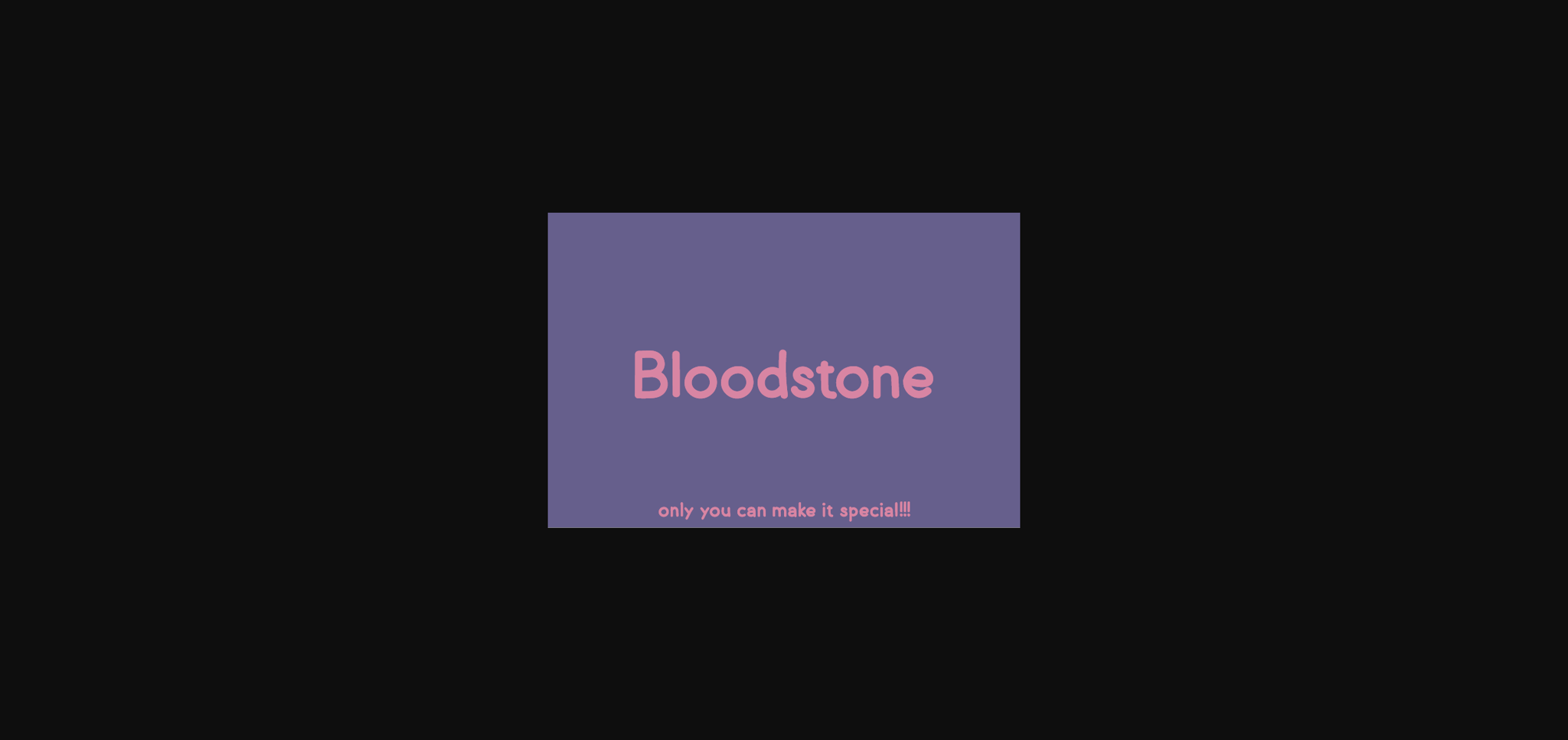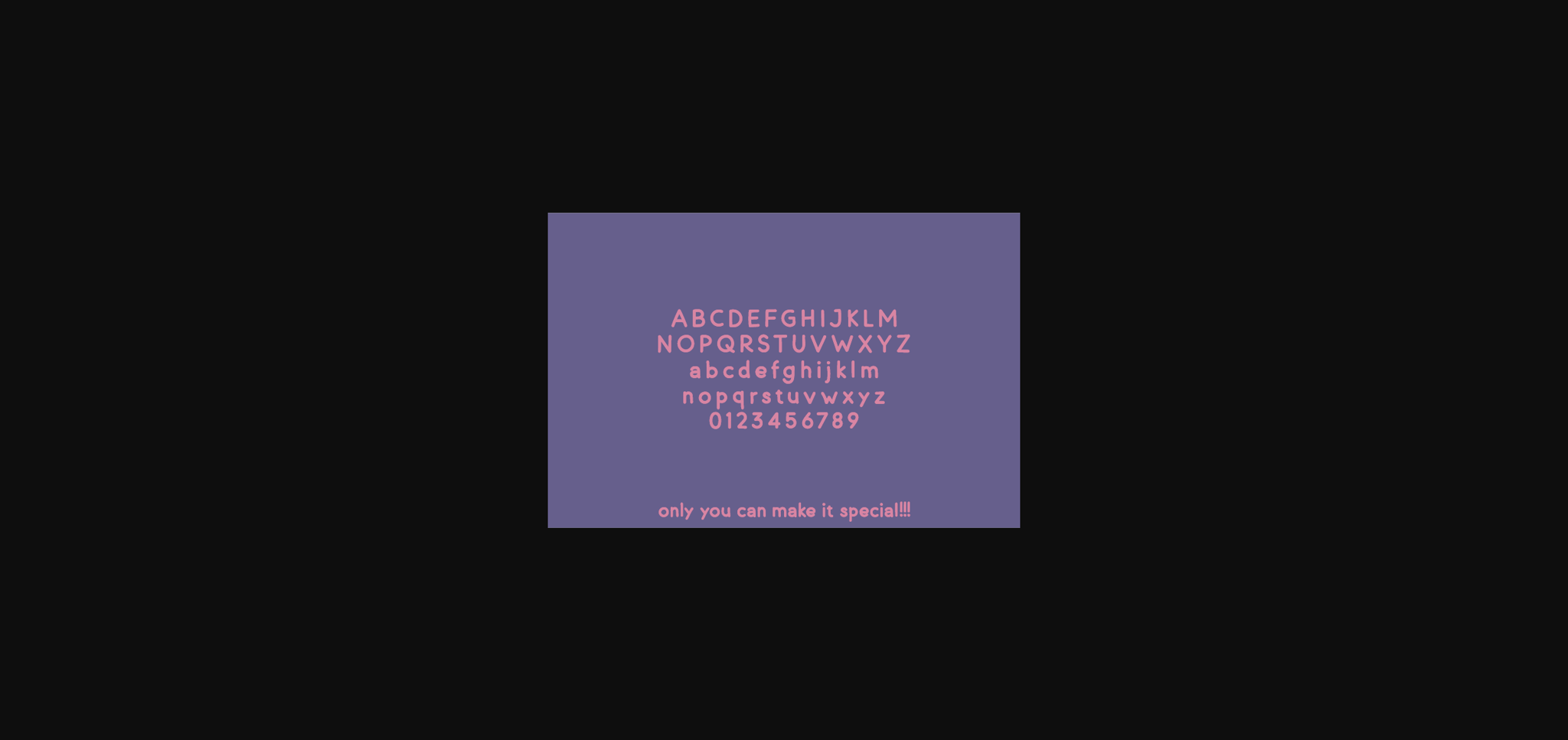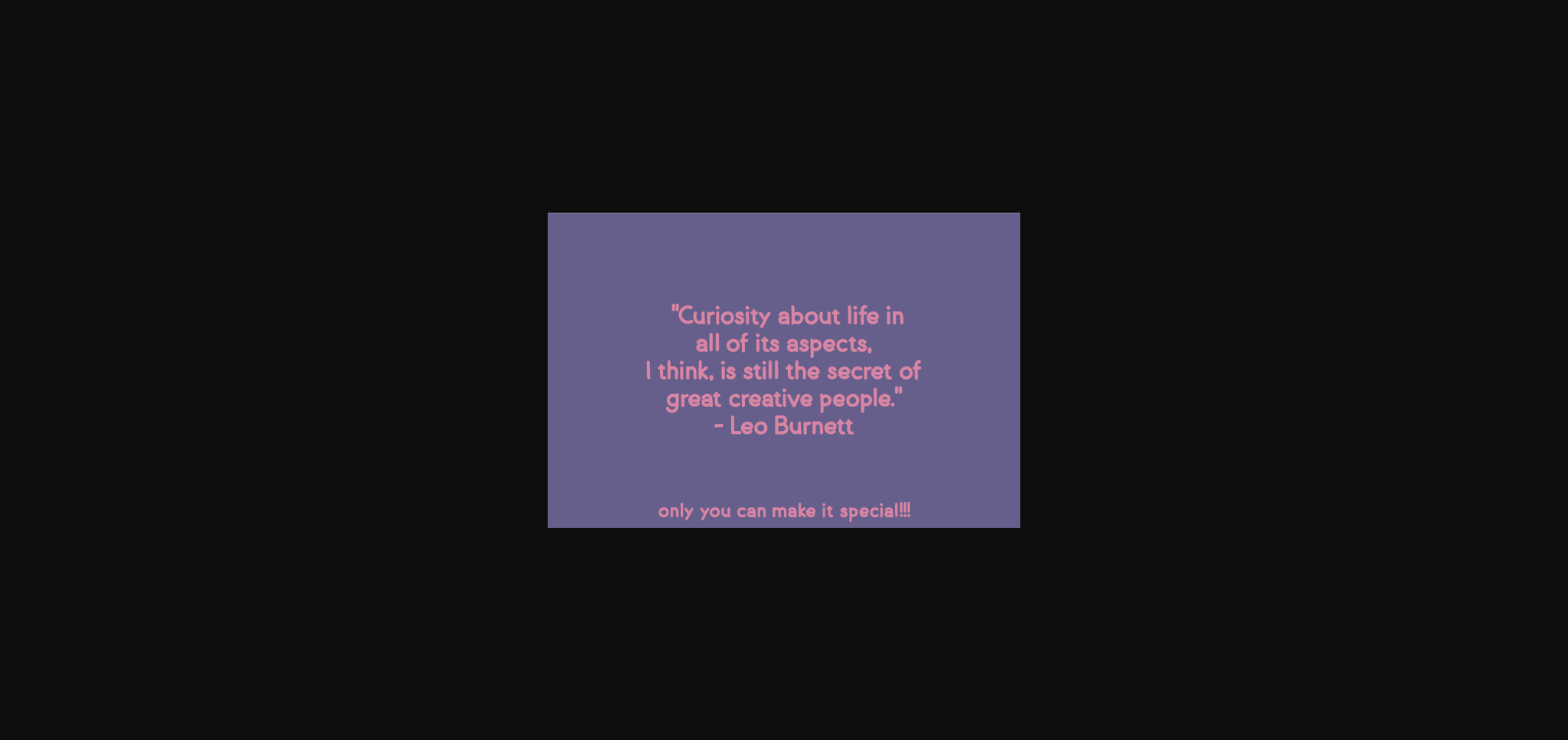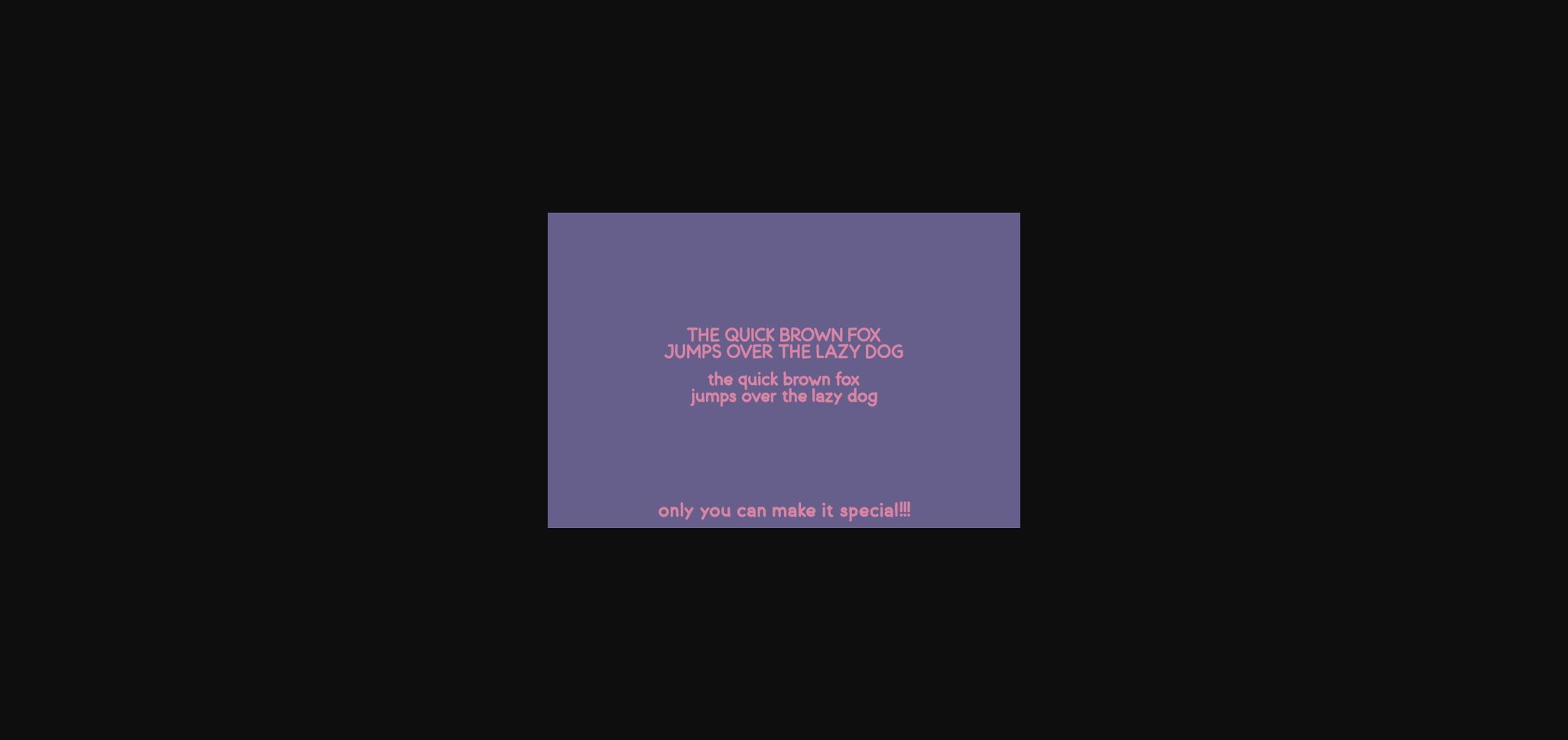
Bloodstone is a natural sans serif font made without changing a single node in each character’s indentation – this makes this font very interesting and unique. Perfect for quotes, notes, tees, and any product design.